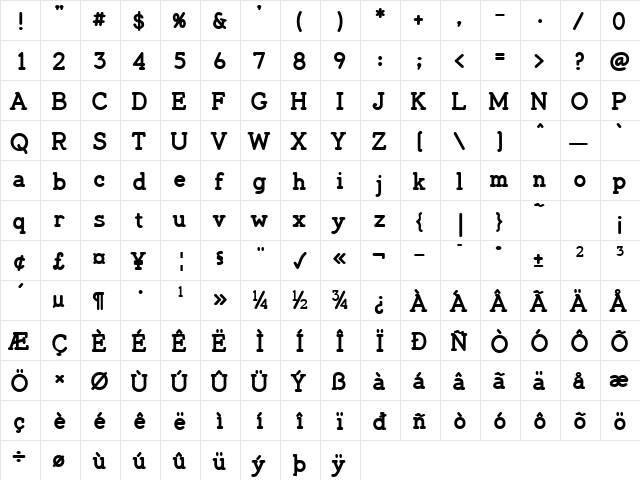
JennerikExtraBold Regular
Design Context for JennerikExtraBold Typeface
JennerikExtraBold takes a measured approach to typography — its balanced proportions and neutral character make it a reliable workhorse for both digital and print work. Its bold stroke weight gives it real presence on the page.